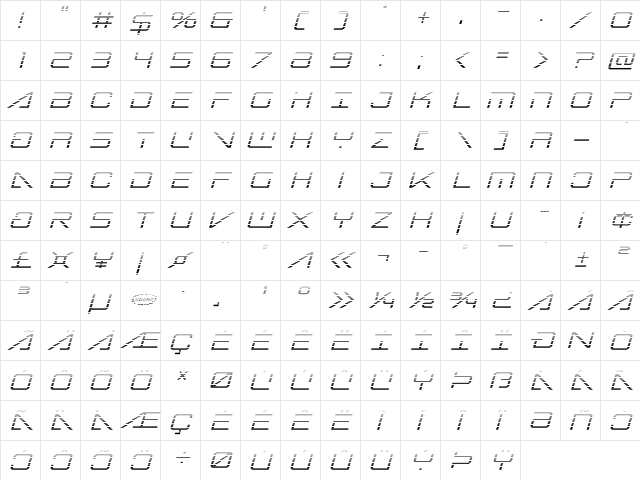
Banshee Pilot Gradient Italic Italic
Design Context for Banshee Pilot Gradient Italic Typeface
Banshee Pilot Gradient Italic is a composed and adaptable typeface that performs quietly and consistently across a wide range of design contexts. The dynamic lean of this cut emphasises speed and emphasis in any layout.
Pro Tip: Try Banshee Pilot Gradient Italic for annotation and caption copy alongside an upright companion — the contrast in angle creates a dynamic but ordered typographic system.